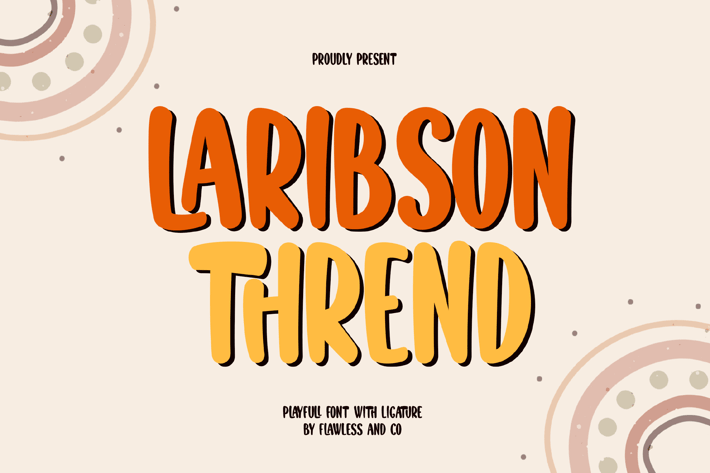
Laribson Thrend - Playful Font
Laribson Thrend is a playful sans serif font designed to bring energy and creativity to your projects. With its fun and modern style, this font is perfect for branding, packaging, headlines, and more. Whether you're creating bold visuals or lighthearted designs, Laribson Thrend adds a fresh and stylish touch to any composition.
Uppercase alphabet A-Z
Lowercase alphabet a-z
Alternate Character
Numbers 0-9
Some punctuation